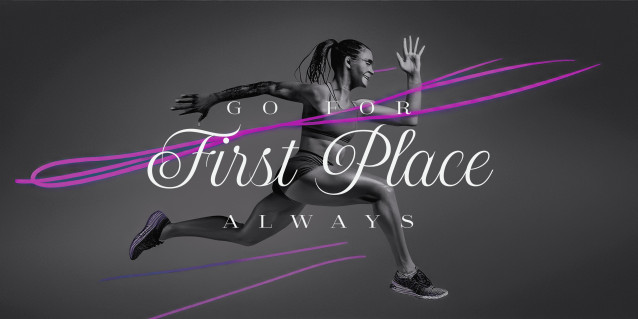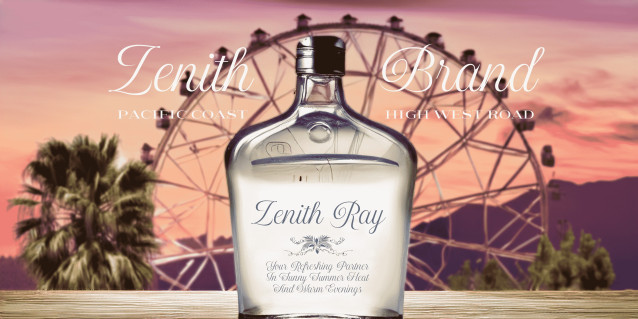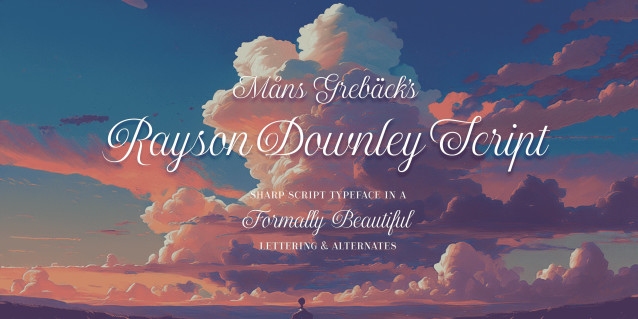
Rayson Downley Script Font
Rayson Downley Script Font is a typeface that showcases the art of fine calligraphy. A formal script typeface, Rayson Downley Script is crafted to bring an air of beauty to your text. Its swirly, elegant strokes create a lovely and inviting aesthetic, perfect for invitations and special occasions. The graceful curves and delicate lines impart a beautiful and charming feel, making it ideal for any setting that calls for a sophisticated and endearing touch. The font is built with advanced OpenType functionality and has a guaranteed top-notch quality, containing stylistic and contextual alternates, ligatures, and more features; all to give you full control and customizability. It has extensive lingual support, covering all Latin-based languages, from Northern Europe to South Africa, from America to South-East Asia. It contains all characters and symbols you’ll ever need, including all punctuation and numbers.